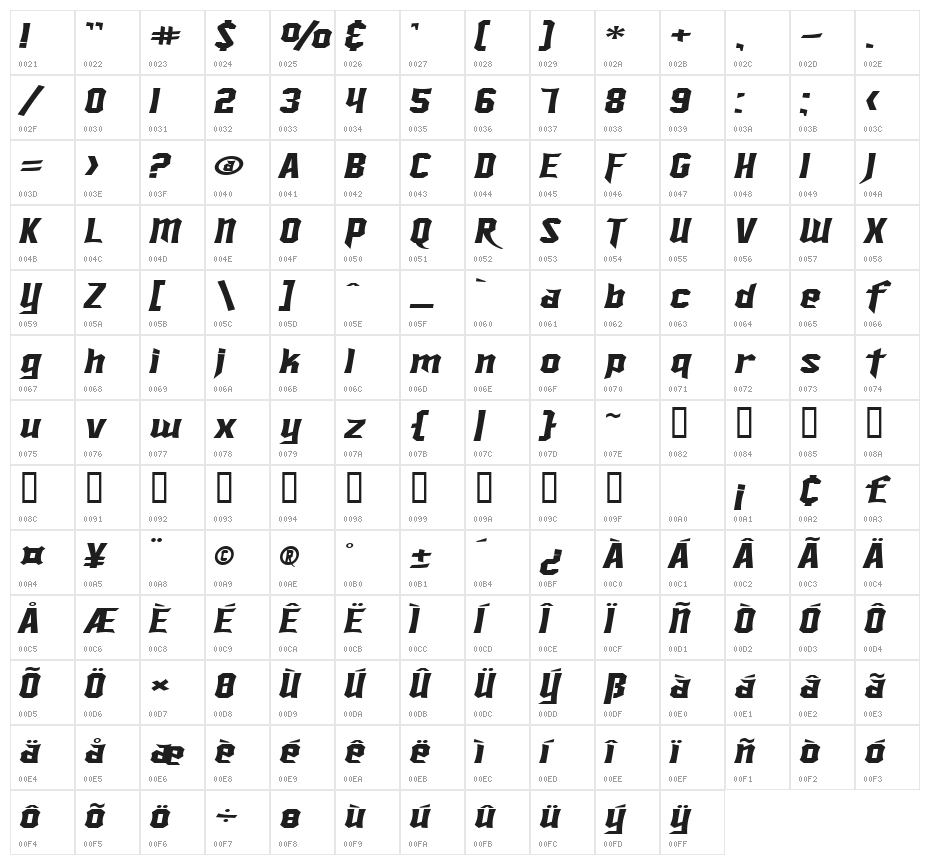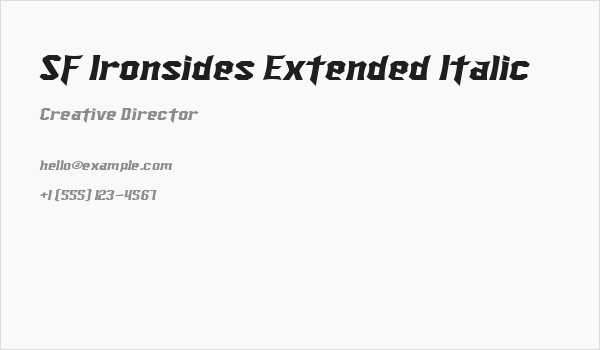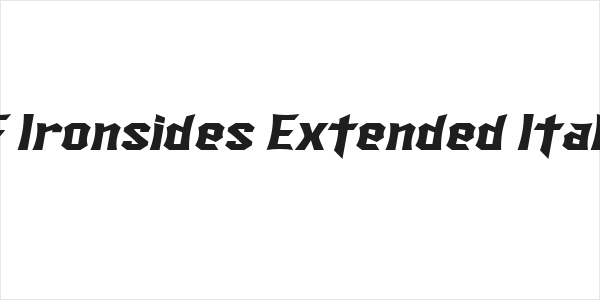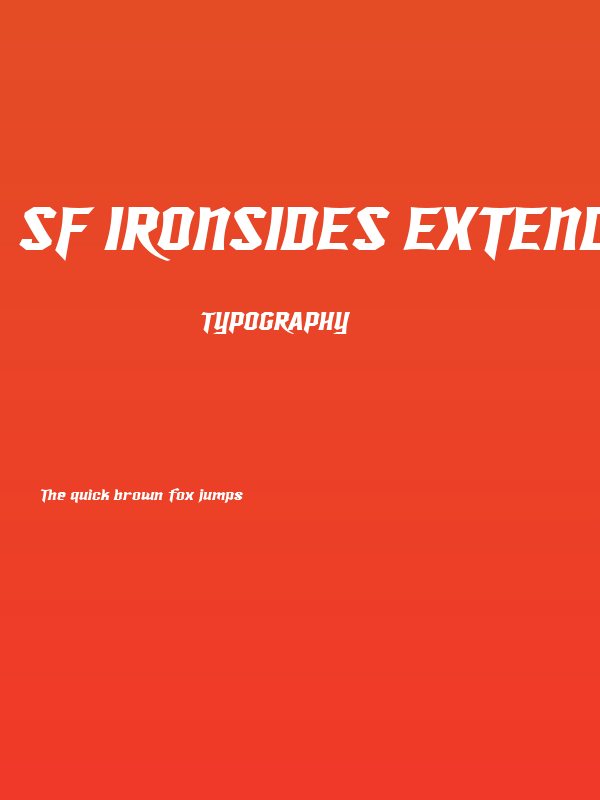
SF Ironsides Extended Italic Font
SF Ironsides Extended Italic Description
This font features a bold, angular design with a distinctly modern and aggressive aesthetic. The characters are sharply defined with a strong emphasis on diagonal lines, giving it a dynamic and energetic feel. The italicized style further enhances its sense of motion and speed. Each letter is uniquely crafted with pointed edges and a slightly extended width, contributing to its standout appearance. The numerals and special characters maintain the same bold and angular characteristics, ensuring consistency across the typeface. This font is ideal for projects that require a strong visual impact and a contemporary edge.
| Proposed Projects | Ideal for sports branding, action movie posters, video game titles, and dynamic logo designs. |